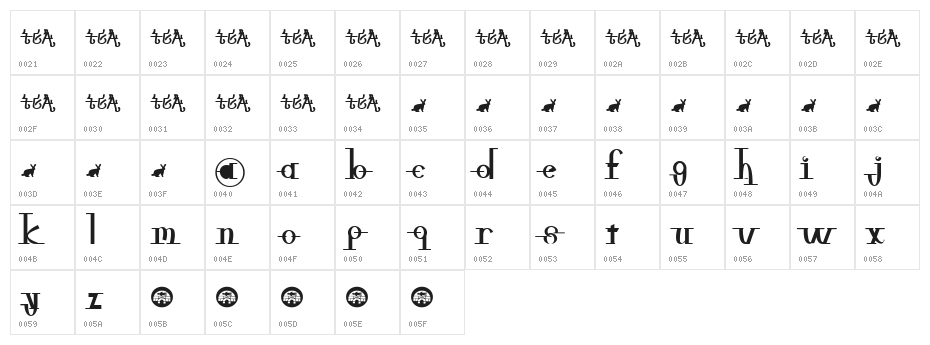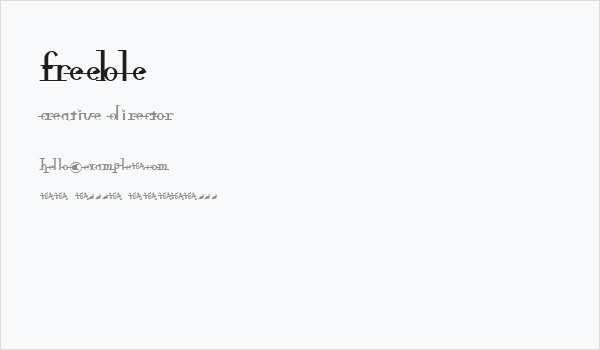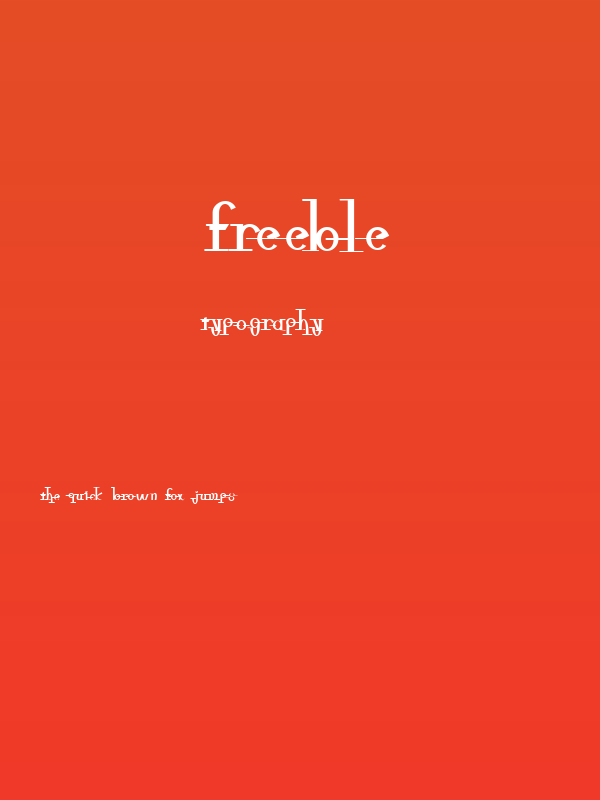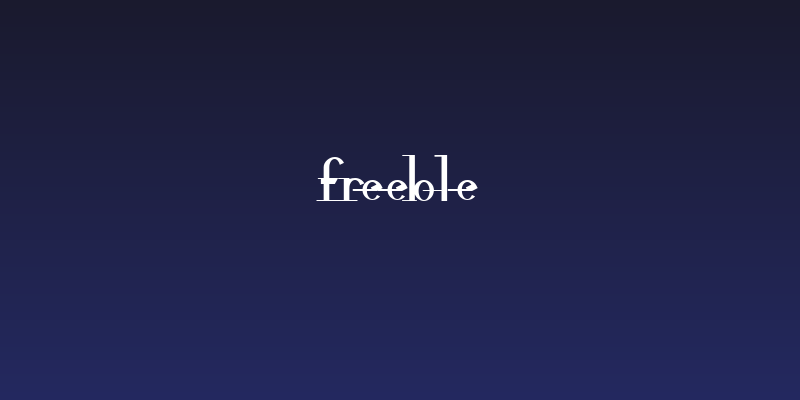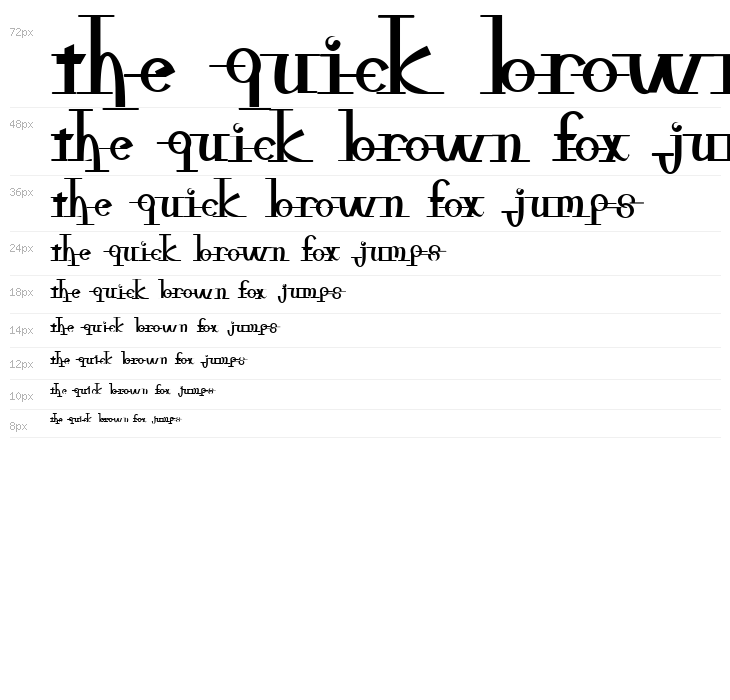
freeble Font
freeble Description
This font features a whimsical and playful design with a unique combination of curves and sharp edges. The letters are characterized by their exaggerated serifs and varying stroke widths, creating a dynamic and eye-catching appearance. The lowercase letters have a distinct style with elongated ascenders and descenders, adding to the font's quirky charm. The uppercase letters maintain a consistent height, providing a balanced contrast to the lowercase set. The numbers and special characters follow the same playful theme, making this font suitable for creative and artistic projects. Its decorative nature makes it stand out, perfect for designs that require a touch of fun and creativity.
Overall StylePlayful, Whimsical, Artistic